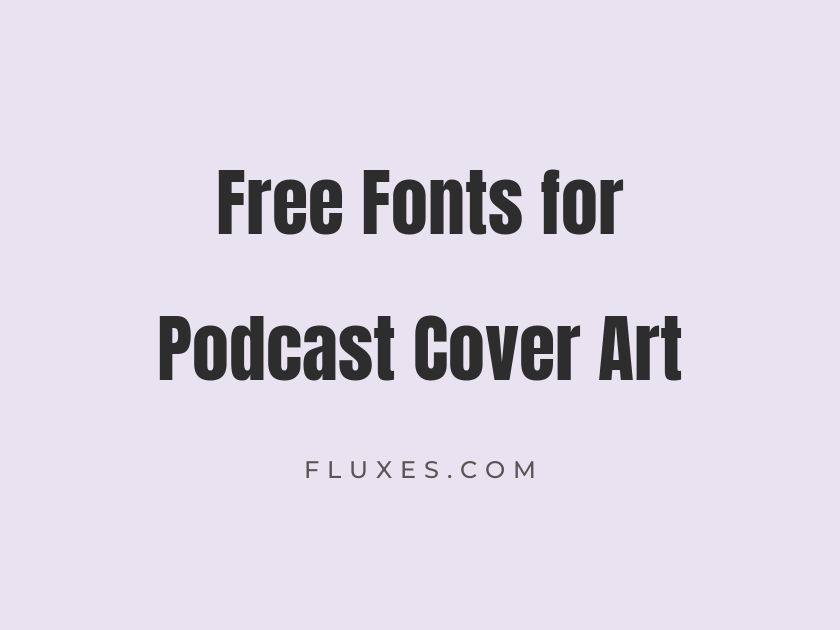
66 Best Free Fonts for Podcast Cover Art
Podcast cover art has one job that trumps everything else: it has to work as a tiny square icon scrolling past a thumb, long before anyone taps play. That means bold weights, high contrast, and a personality that reads instantly as true crime, comedy, business, or bedtime story, all in a fraction of a second. The good news is that you do not need a paid license to get that kind of impact; Google Fonts has more than enough free options to replace the Proxima Nova and Gotham lookalikes that dominate the charts.
What follows is a working shortlist built for exactly that job: fonts that stay legible when shrunk to app-icon size, hold their shape in dark mode and light mode alike, and give each show a distinct voice on a crowded podcast app grid.
1. Anton
Anton is about as loud as free type gets, a condensed grotesk built entirely from heavy, confident strokes. It survives being shrunk to a 60-pixel app icon better than almost anything else on this list, which makes it a favorite for true crime, sports, and news-adjacent shows that need to shout their title from across a crowded feed.
2. Bebas Neue
This all-caps condensed sans has become something of a default for podcast branding, and for good reason: it is tall, tight, and endlessly stackable across multiple lines of a title. Pair it with a simple color block and a single photo and you have cover art in minutes.
3. Archivo Black
Archivo Black trades condensed drama for width and weight, giving it a sturdy, editorial feel that suits business, finance, and interview shows. Its wide counters keep it readable even when a listener’s phone screen is set to a smaller icon size.
4. Oswald
Oswald has quietly powered a huge share of the internet’s headlines, and it carries that same authority onto a podcast cover. It is condensed enough to fit long show names on one or two lines without feeling cramped.
5. Poppins
Geometric and friendly, Poppins reads as approachable rather than aggressive, which suits lifestyle, wellness, and self-improvement shows that want warmth over shock value. Its perfectly round bowls also make it a dependable pairing partner for a bolder display headline.
6. Montserrat
Montserrat has become a safe, versatile workhorse for cover art that needs to feel current without leaning into any one genre too hard. Bump it up to a bold or black weight and it holds its own as a standalone title font.
7. League Spartan
Wide, geometric, and unapologetically bold, League Spartan gives a title real presence without the aggressive condensing of something like Anton. It suits tech and startup shows that want to look modern rather than shouty.
8. Staatliches
Staatliches has a slightly rough, stencil-adjacent edge that makes it feel more handmade than a typical condensed sans. It works well for music, culture, and event-recap podcasts looking for a poster-like quality.
9. Fjalla One
Fjalla One sits between condensed and regular width, giving it a clean, journalistic tone that suits news roundups and interview formats. It is narrow enough to fit a long tagline without needing a second line.
10. Alfa Slab One
This is a slab serif turned up to maximum weight, blocky and almost cartoonish in the best way. It fits comedy, wrestling, and pop-culture shows that want a title to feel like a punch rather than a whisper.
11. Passion One
Passion One has a rounded, slightly bouncy quality that softens its bold weight, making it a good fit for sports banter and fan-culture shows. It reads clearly even at the smallest icon sizes.
12. Space Grotesk
Space Grotesk mixes a geometric skeleton with slightly quirky proportions, landing somewhere between clinical and characterful. It has become a go-to for tech, science, and startup podcasts that want to look current without copying every other tech brand’s Helvetica clone.
13. Sora
Sora is clean and rounded at the corners just enough to feel modern rather than corporate, which makes it comfortable for tech and media-analysis shows. It holds up well in both a bold headline role and smaller supporting text.
14. Outfit
Outfit’s geometric simplicity gives it a calm, restrained feel that suits design, architecture, and minimalist lifestyle podcasts. It is not a font that fights for attention, so it works best on covers where a strong image is doing the heavy lifting.
15. Manrope
Leave generous margin around your text. Podcast apps often crop or round the corners of cover art, so keep important letterforms away from the edges.
If your genre leans dramatic, such as true crime or horror, let a single distressed or display font carry the mood, and keep every other element on the cover simple.
Free does not have to mean forgettable. With the right pairing of a bold display headline and a clean supporting sans, any of these Google Fonts can give a podcast cover the instant, genre-appropriate punch it needs to stand out in a crowded feed.